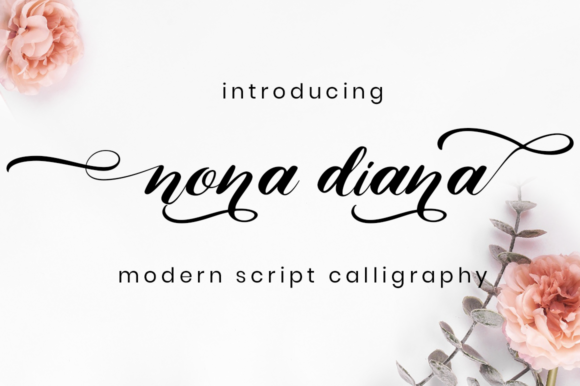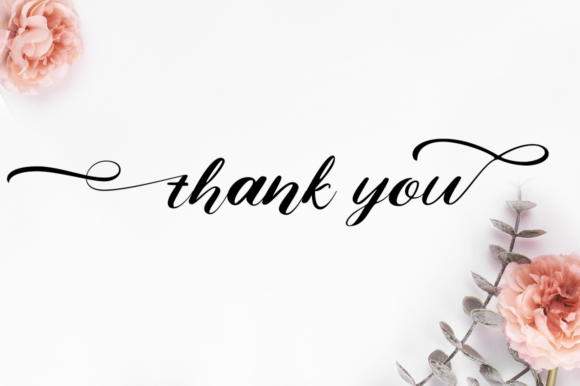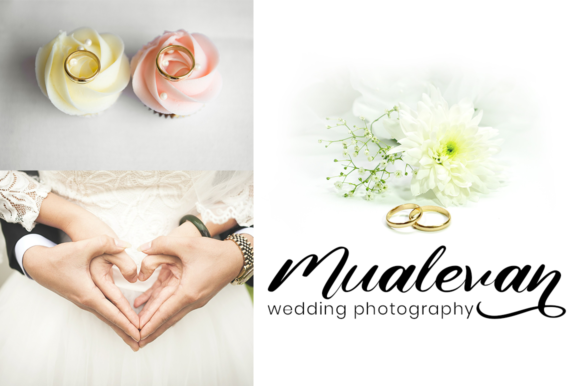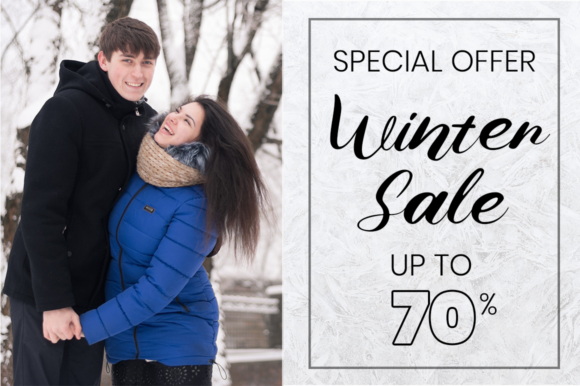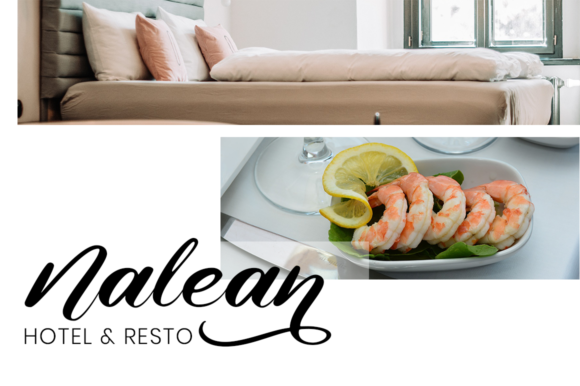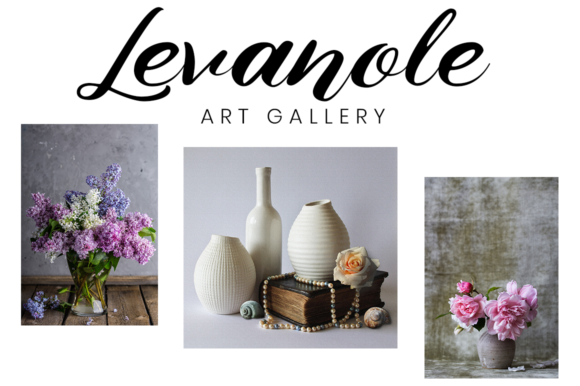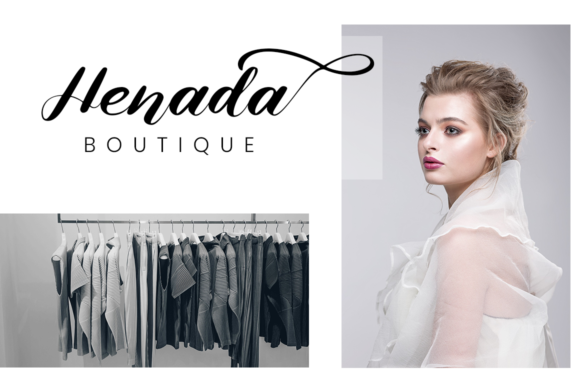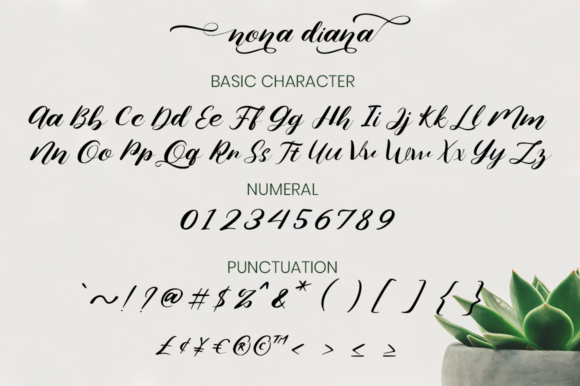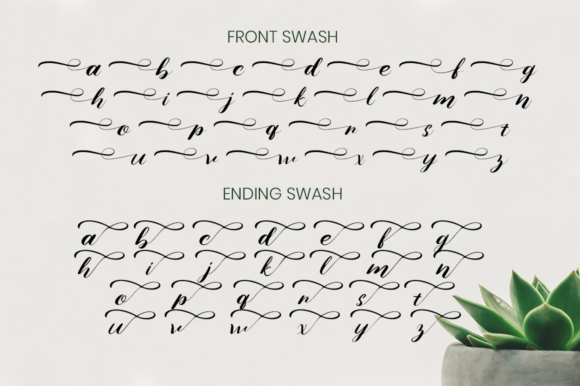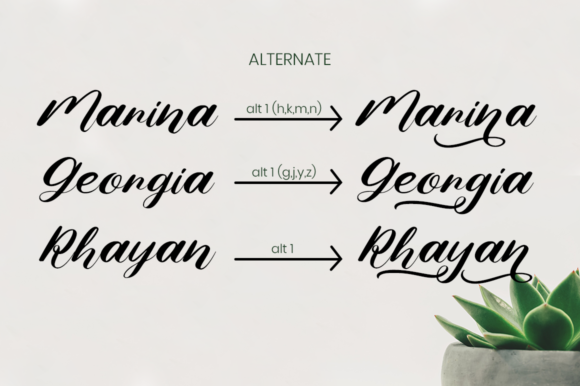
HomeScript FontsNona Diana Font Script Fonts Nona Diana Font FacebookXPinterestWhatsApp Nona Diana Font Poster 2 Nona Diana Font Poster 3 Nona Diana Font Poster 4 Nona Diana Font Poster 5 Nona Diana Font Poster 6 Nona Diana Font Poster 7 Nona Diana Font Poster 8 Nona Diana Font Poster 9 Nona Diana Font Poster 10 About Nona Diana Font Nona Diana is a light, yet serious script featuring bold swashes. Get inspired by this charming script. DOWNLOAD ON CREATIVE FABRICAThis font is sold and delivered by Creative Fabrica. Font Canyon may earn a commission if you buy through this link. People also explored Unique Surfer Font Falerina Buls Font Elah Spring Font Morour Nite Beezy Font Southlove Script Font Wander Font Yellow Wedding Font Winterland Font 326 0 TagsNona Diana Font Previous articleShadow Brush FontNext articleQueenly Font LEAVE A REPLY Cancel reply Comment: Please enter your comment! Name:* Please enter your name here Email:* You have entered an incorrect email address! Please enter your email address here Website: Save my name, email, and website in this browser for the next time I comment. Personal Use Free Sileighty Personal Use Free Read more about this font Gila Personal Use Free Read more about this font Aline Personal Use Free Read more about this font Green Farmhouse Personal Use Free Read more about this font BLOG Transform Your Website: Elevate Your Typography with 7 Best Web Font Generators Are you ready to transform your website's typography from ordinary to extraordinary? Great! Today, we're diving into the world of web font generators, which... Using Fonts in Digital Marketing: Tips to Strengthen Your Brand Identity Best Fonts for YouTube Videos: Make Your Thumbnails Stand Out Top 10 Handwritten Fonts That Elevate Your Designs